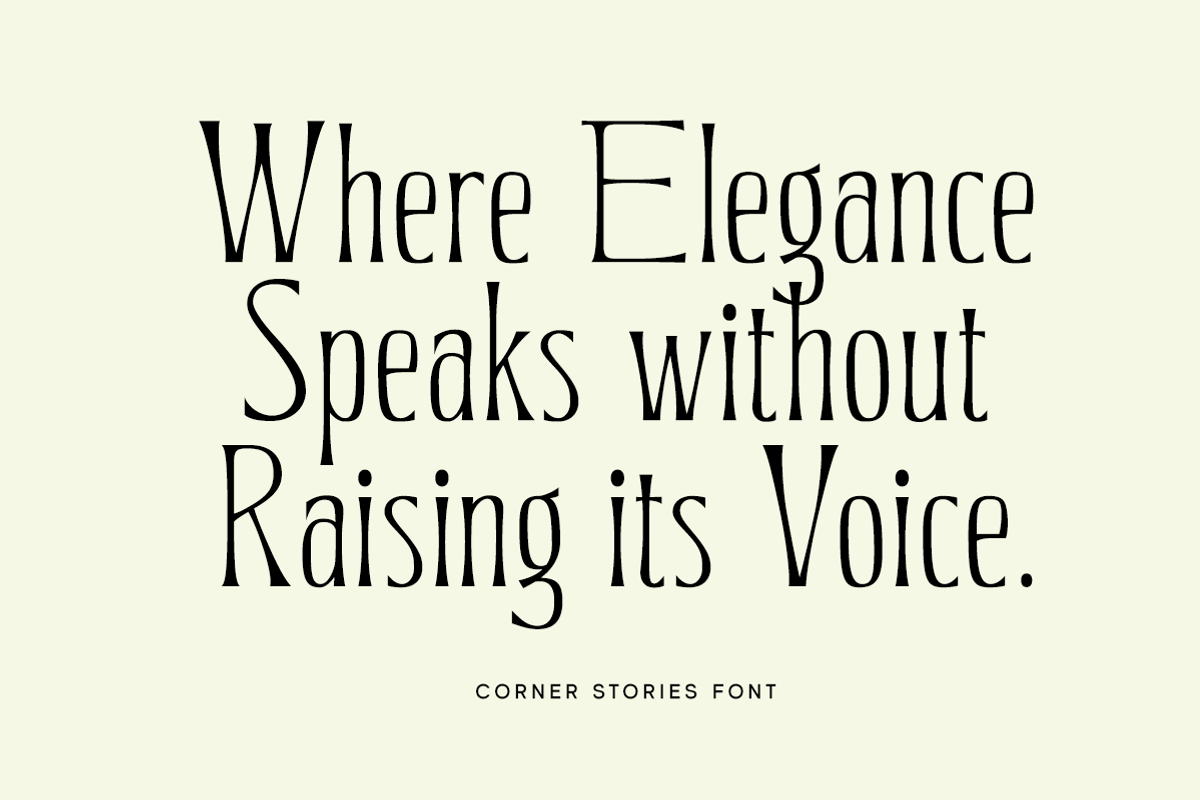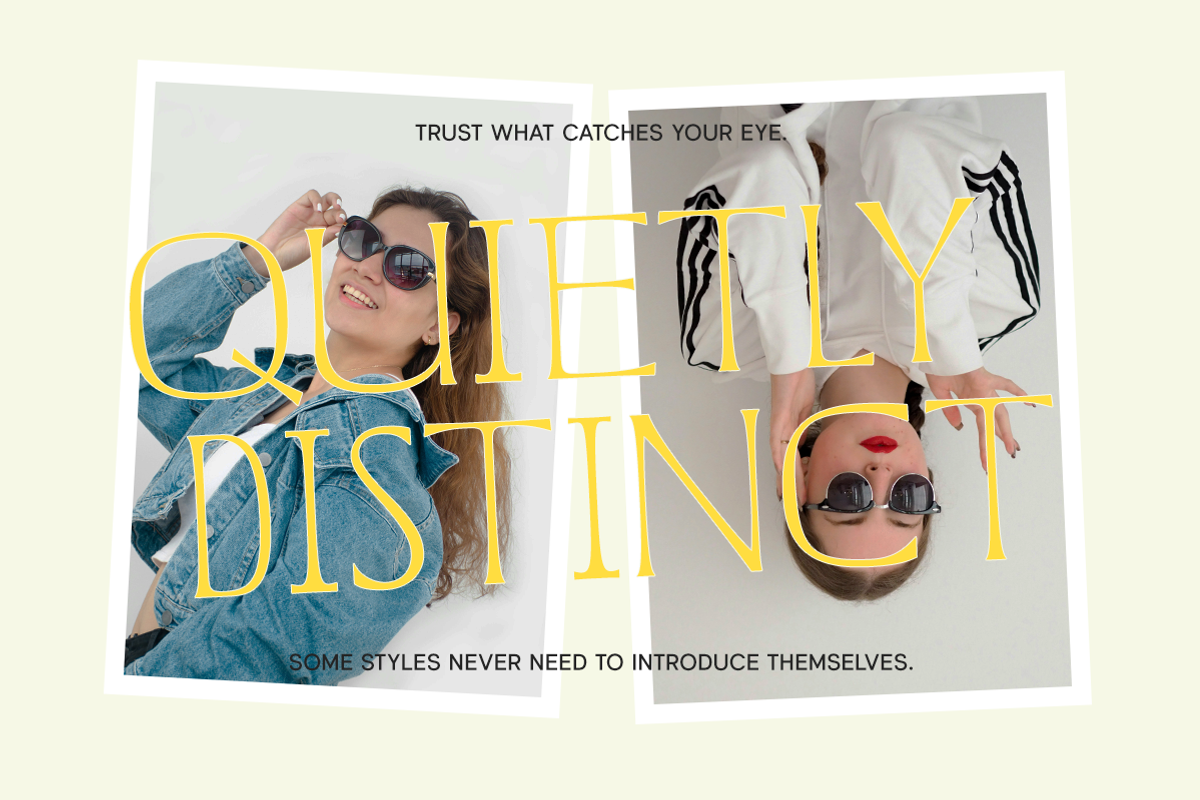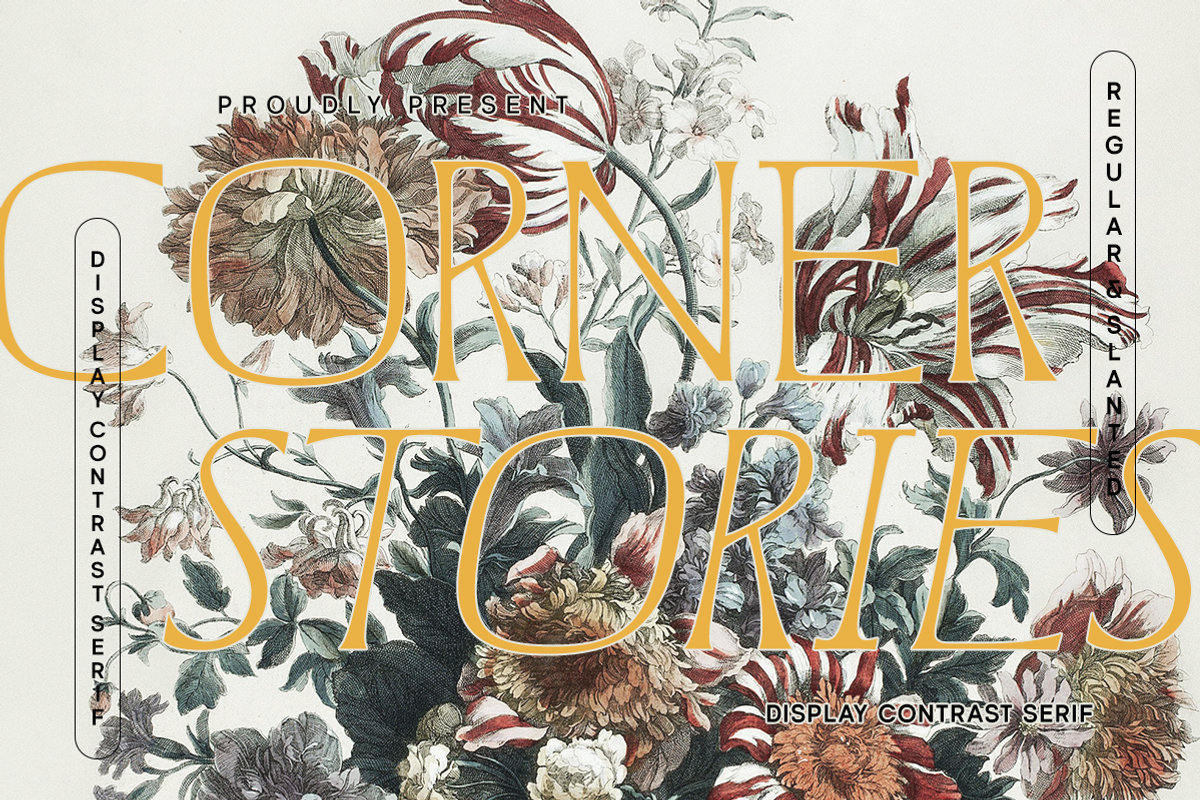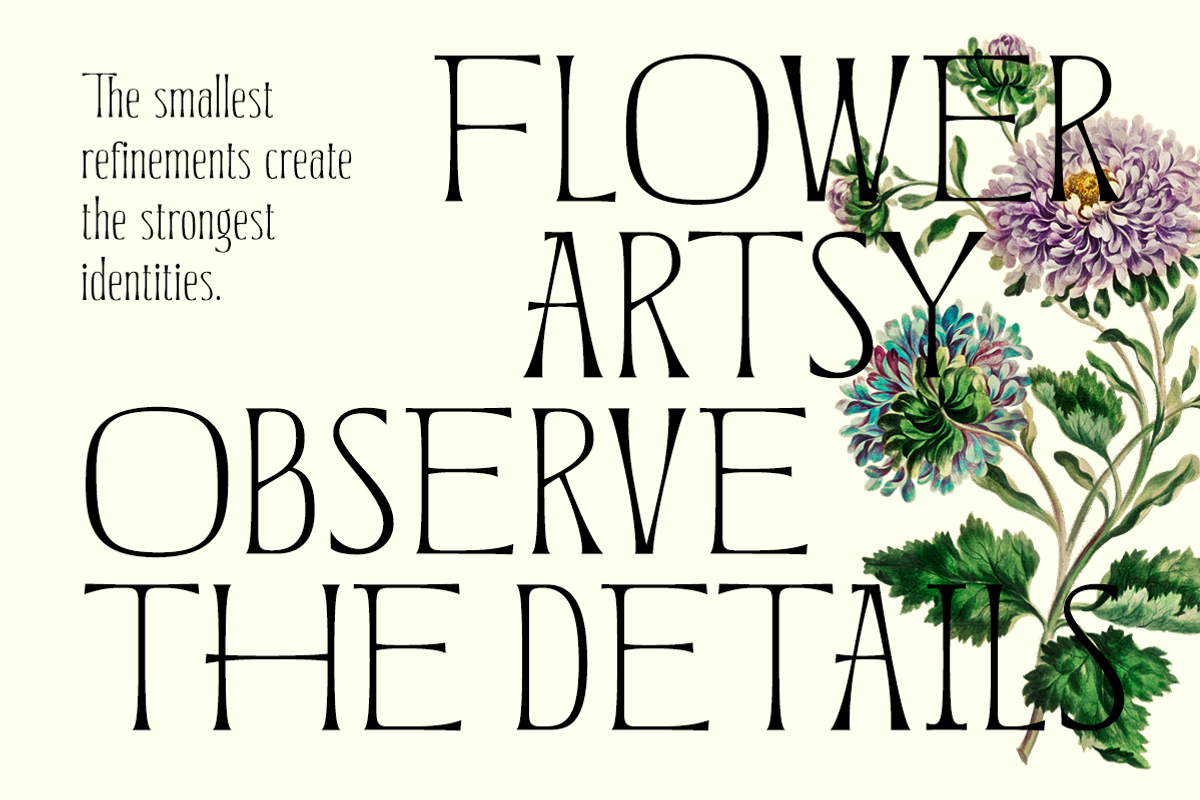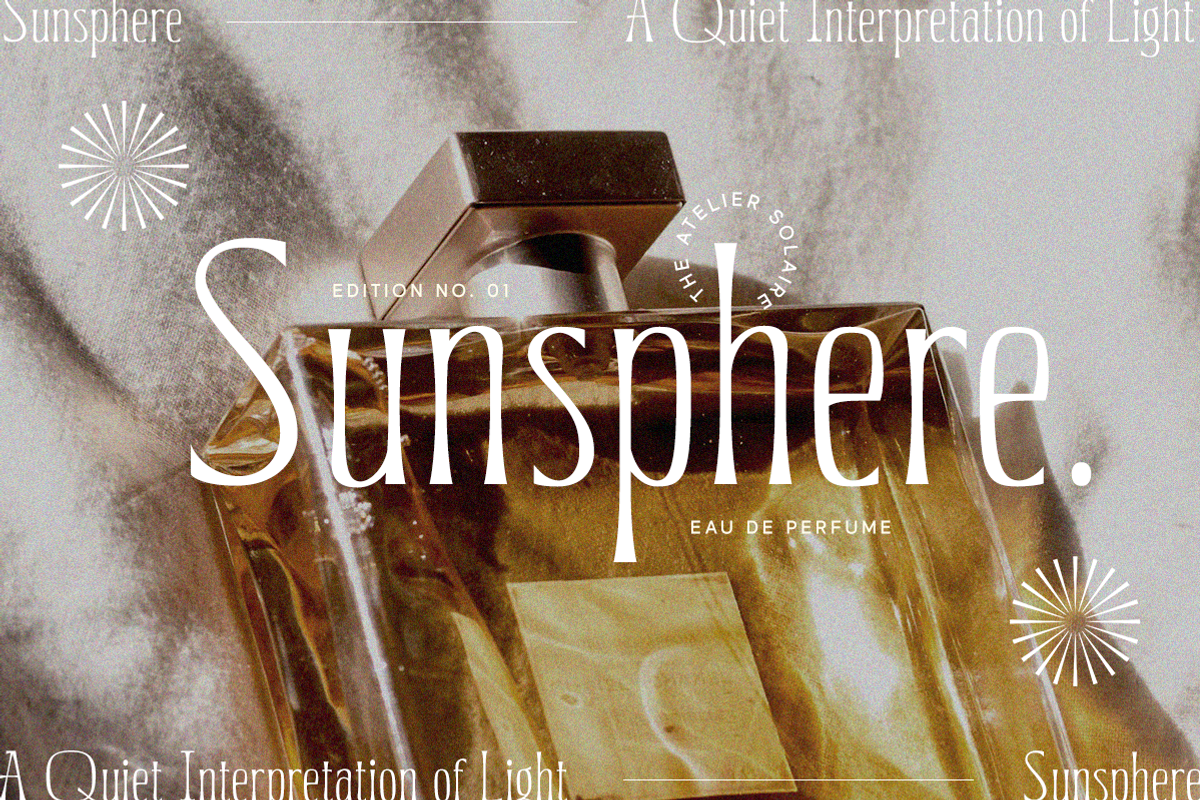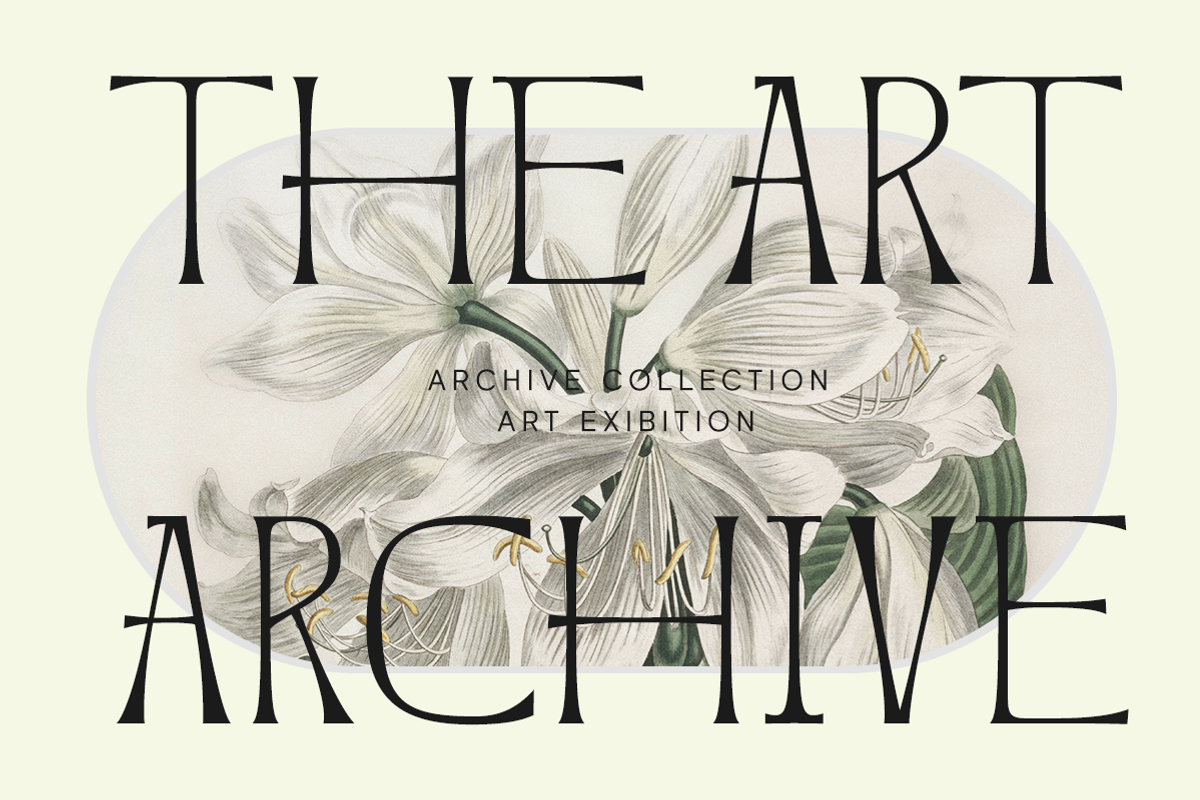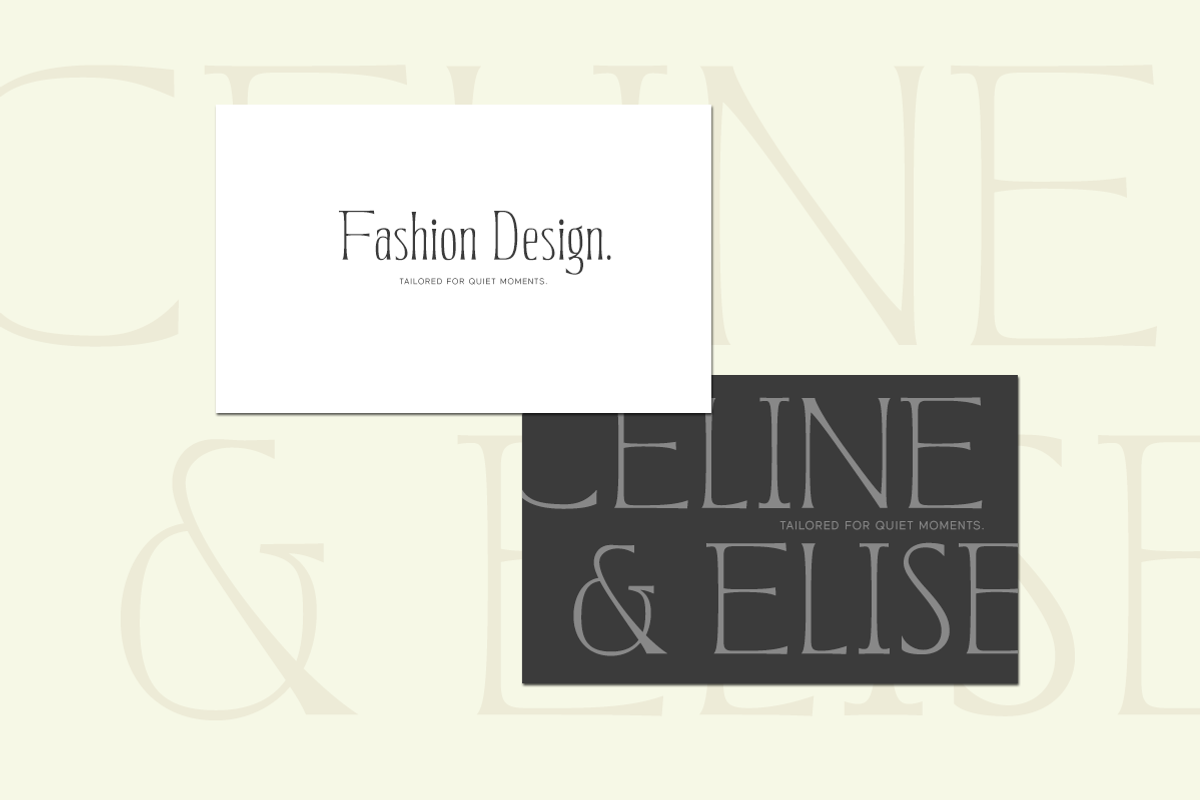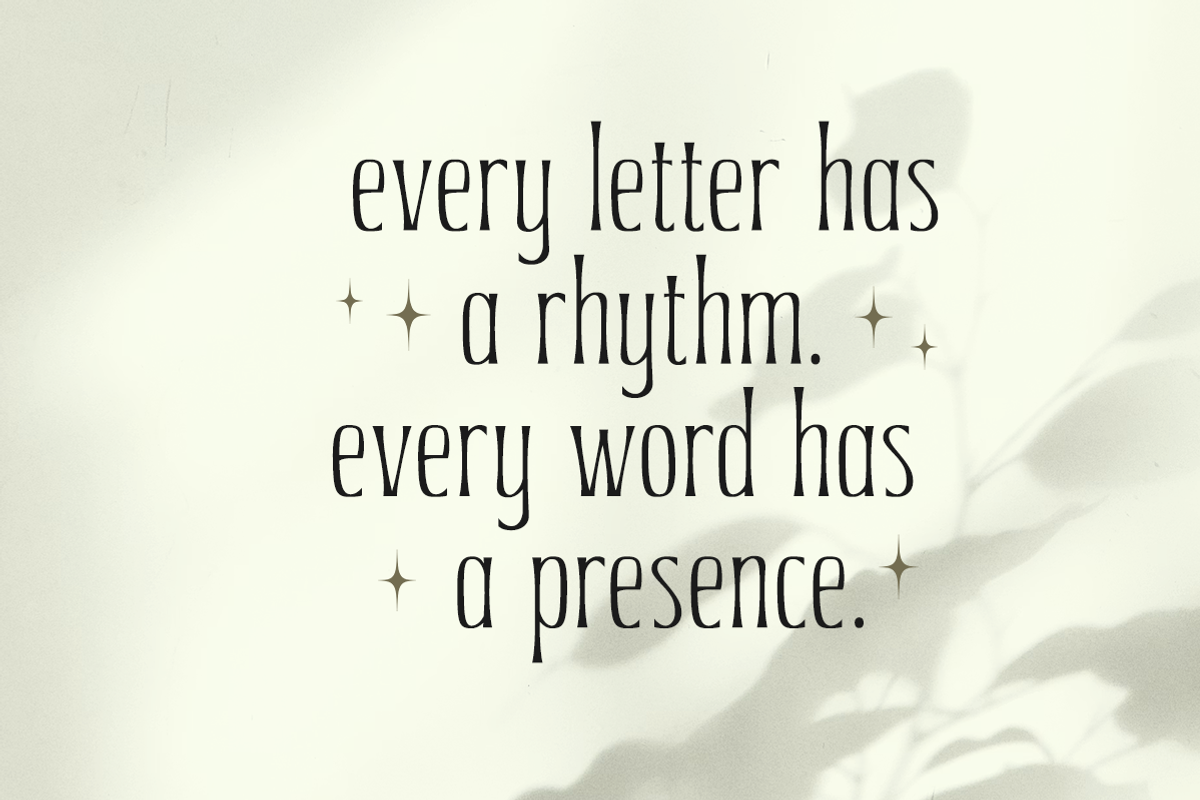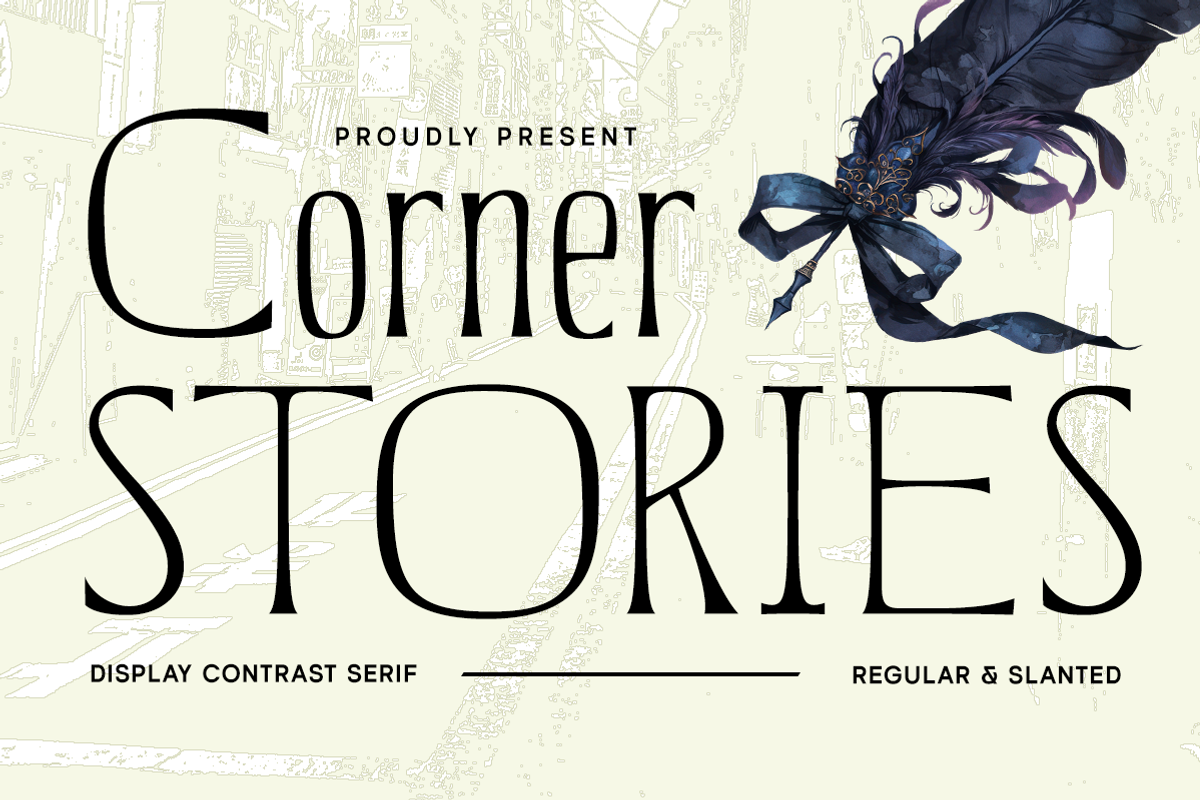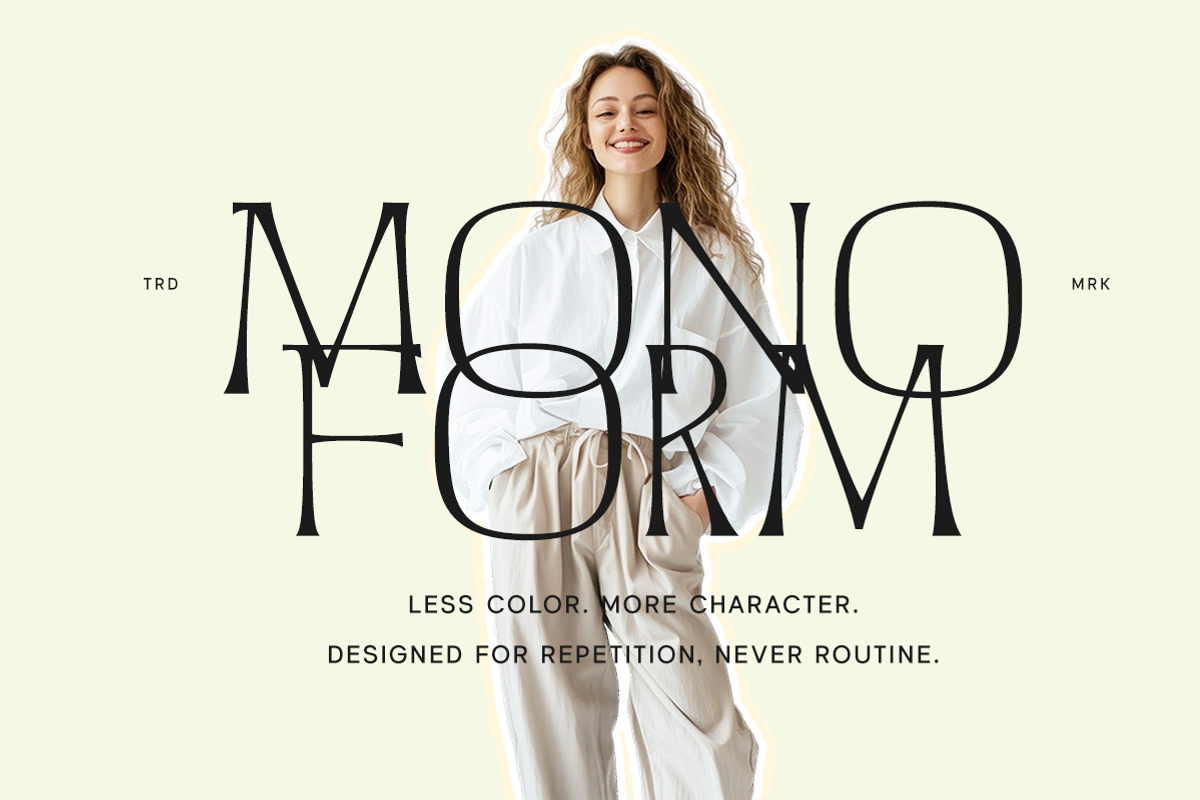
Corner Stories Contrast Serif
Corner Stories is a refined display serif that speaks through graceful contrast, elongated proportions, and quietly expressive details. Inspired by the elegance of editorial typography and timeless luxury branding, it captures a sophisticated balance between classic beauty and contemporary style. Every letter carries a sense of confidence without excess.
Uppercase & lowercase
Numbers and punctuation
Alternates Character